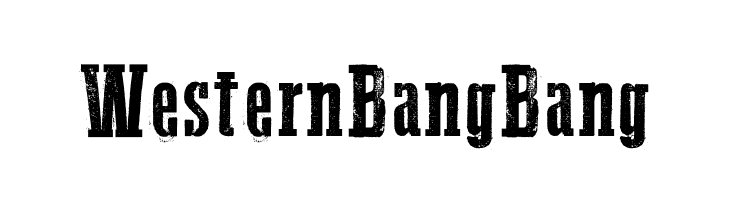
Bold, Western-inspired decorative display font with strong slab serifs.
Bold, distressed slab serif with a vintage Western feel.
Bold, jagged-edge display font with a Western vibe.
Bold, distressed serif font with Western-inspired decorative elements.
Bold slab serif font with a vintage Western aesthetic.
Bold, condensed Western-style display font with ornamental serifs.
Bold, jagged-edged display font with a Western vintage feel.
Bold, vintage slab serif font with a western, heavy block style.
Bold, vintage slab serif font with a Western-style aesthetic.
A bold, slab serif font with a vintage Western aesthetic.
A bold, slab serif font with a vintage Western style.
A bold, Western-style font with blocky, decorative characters.
A bold, decorative font with a vintage Western style.